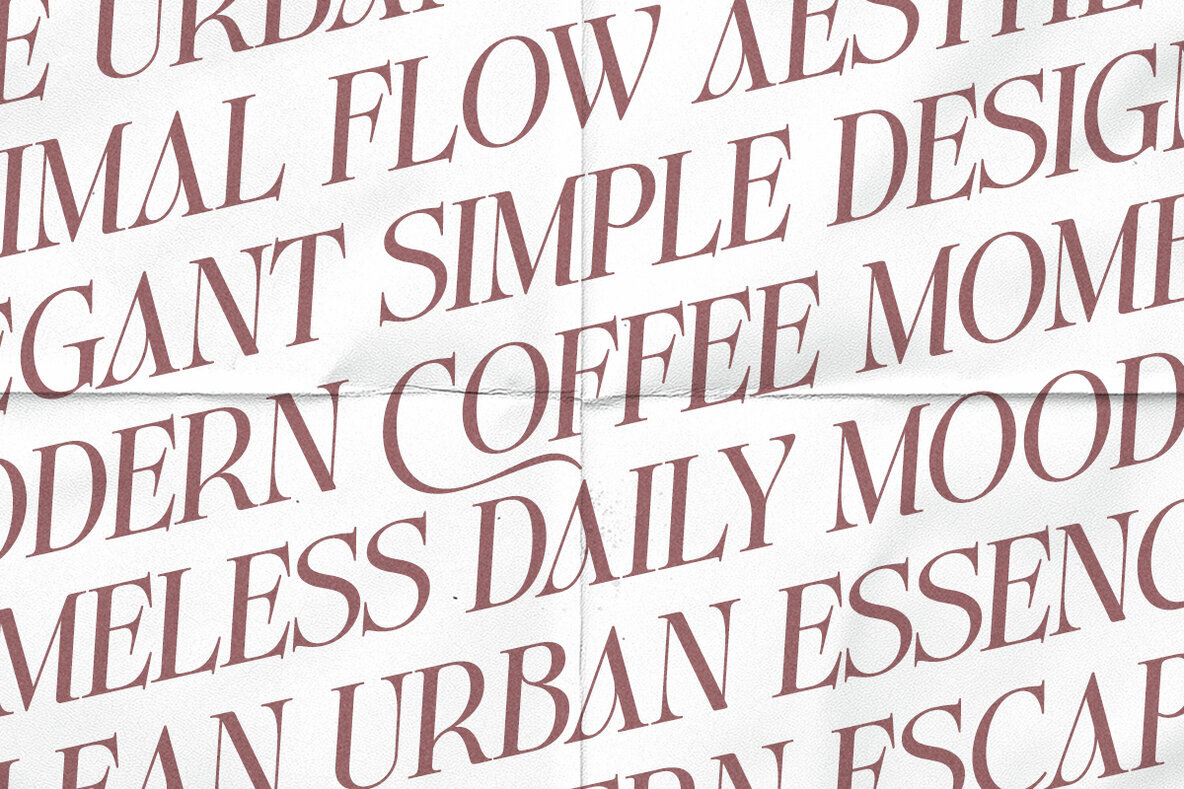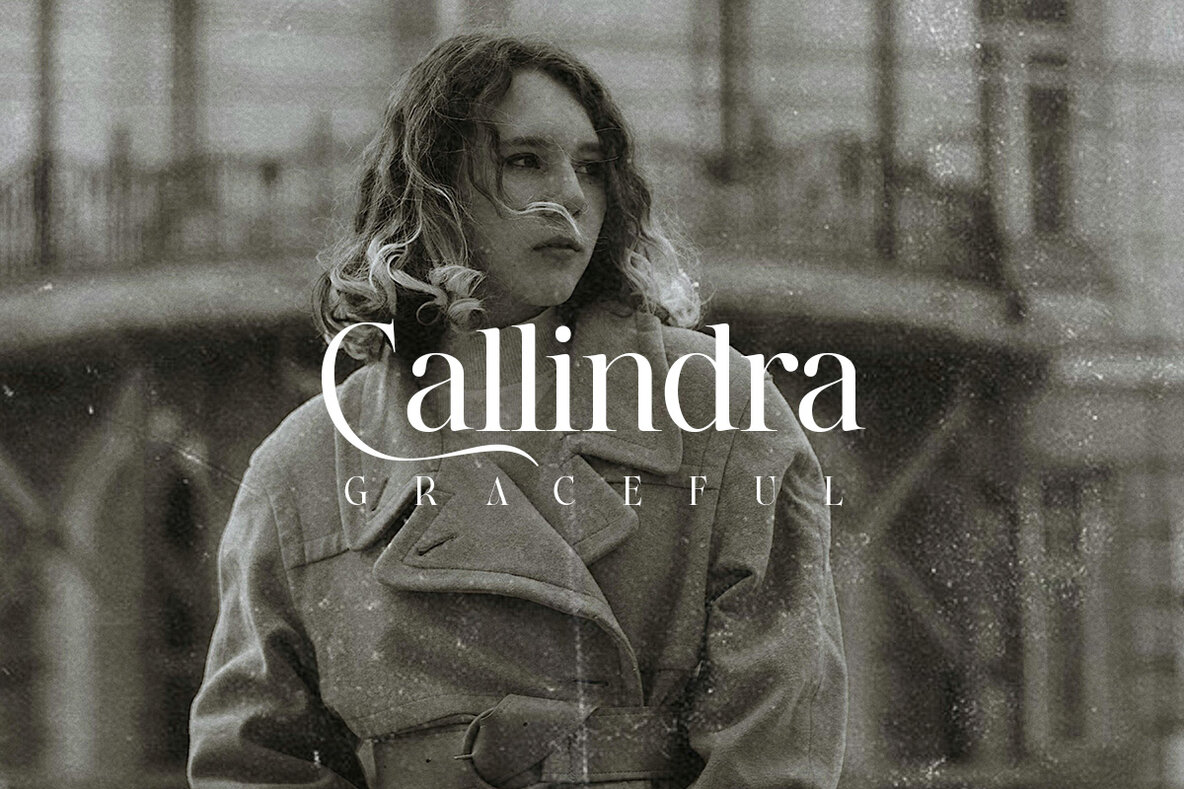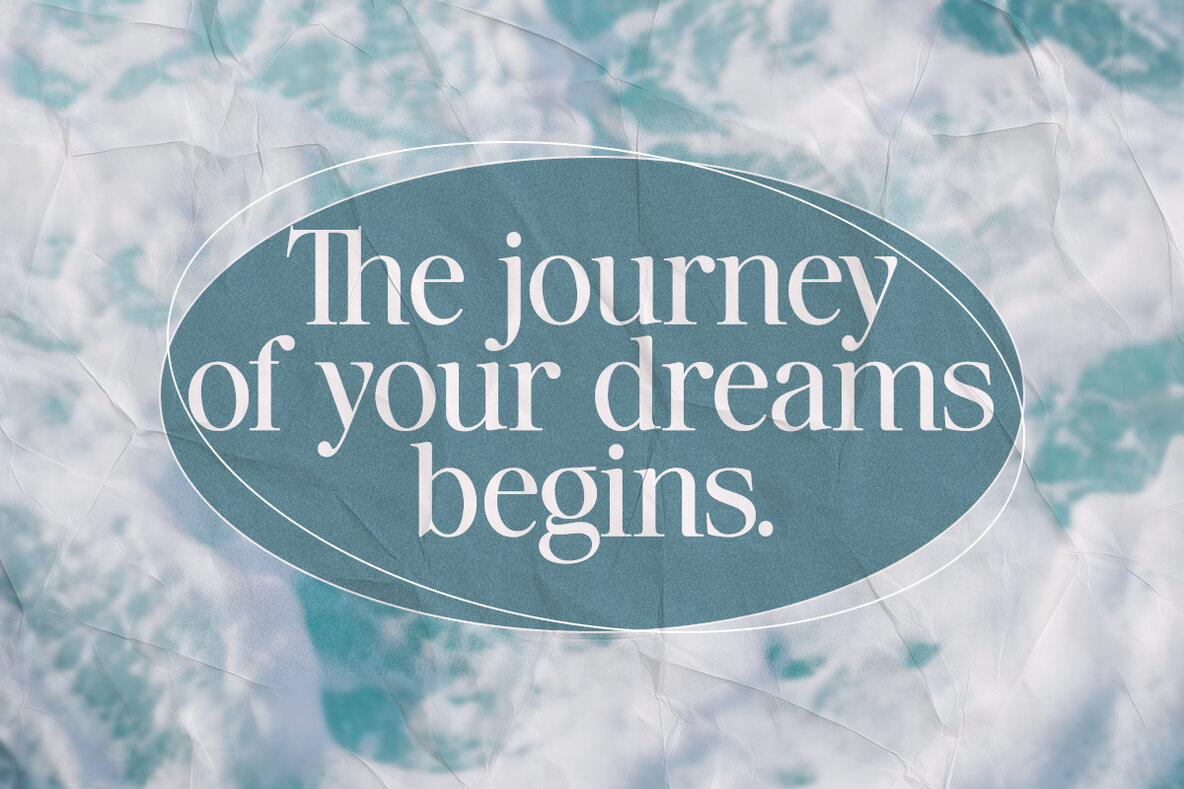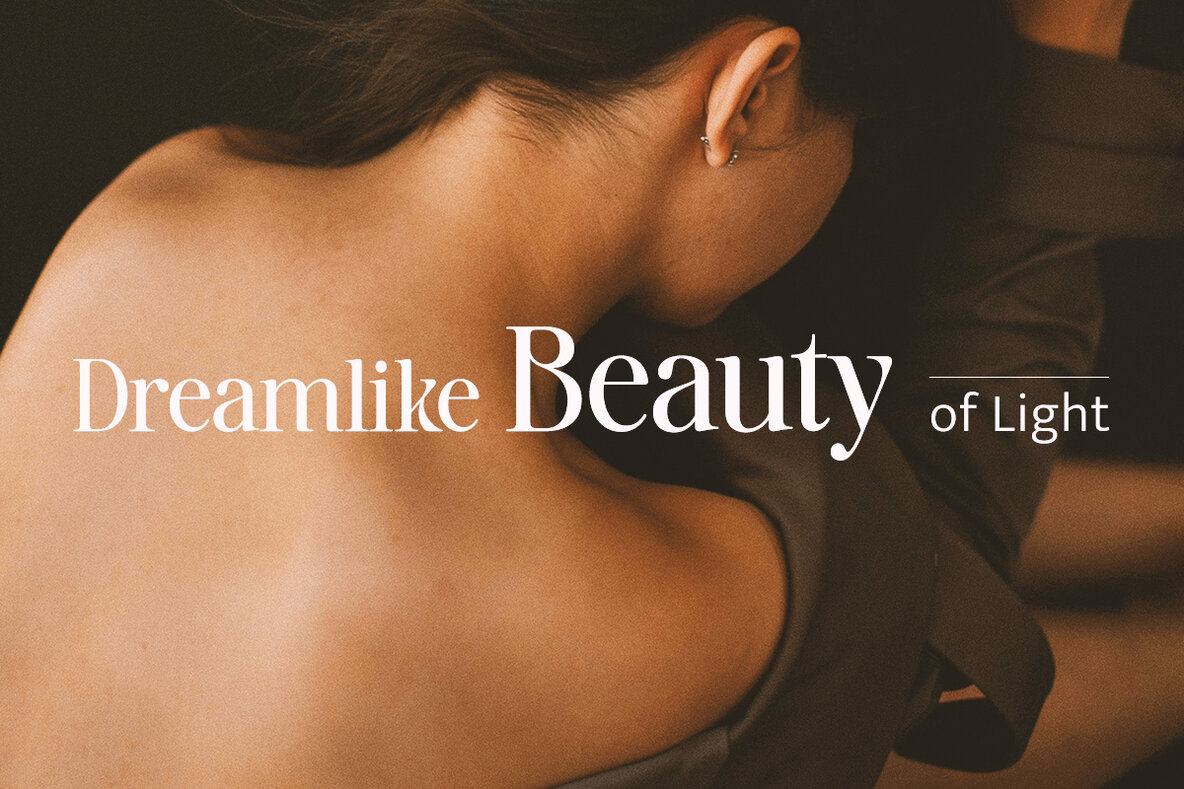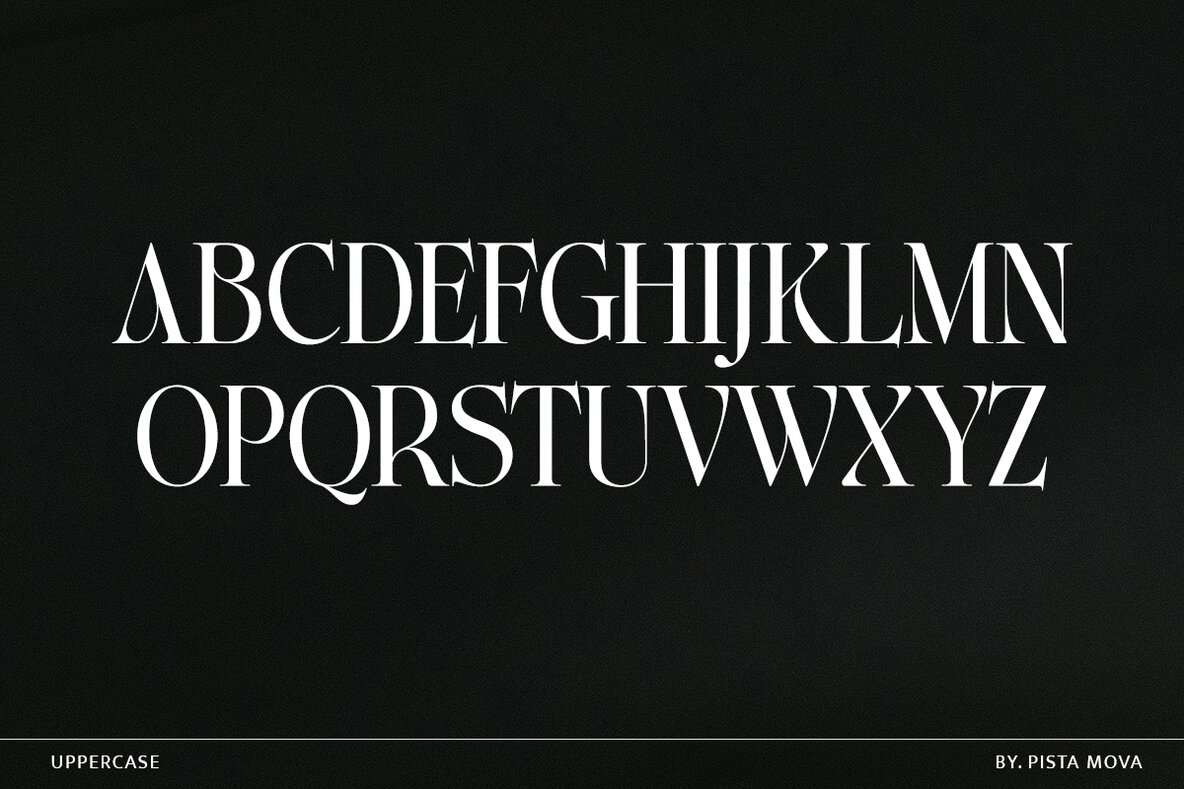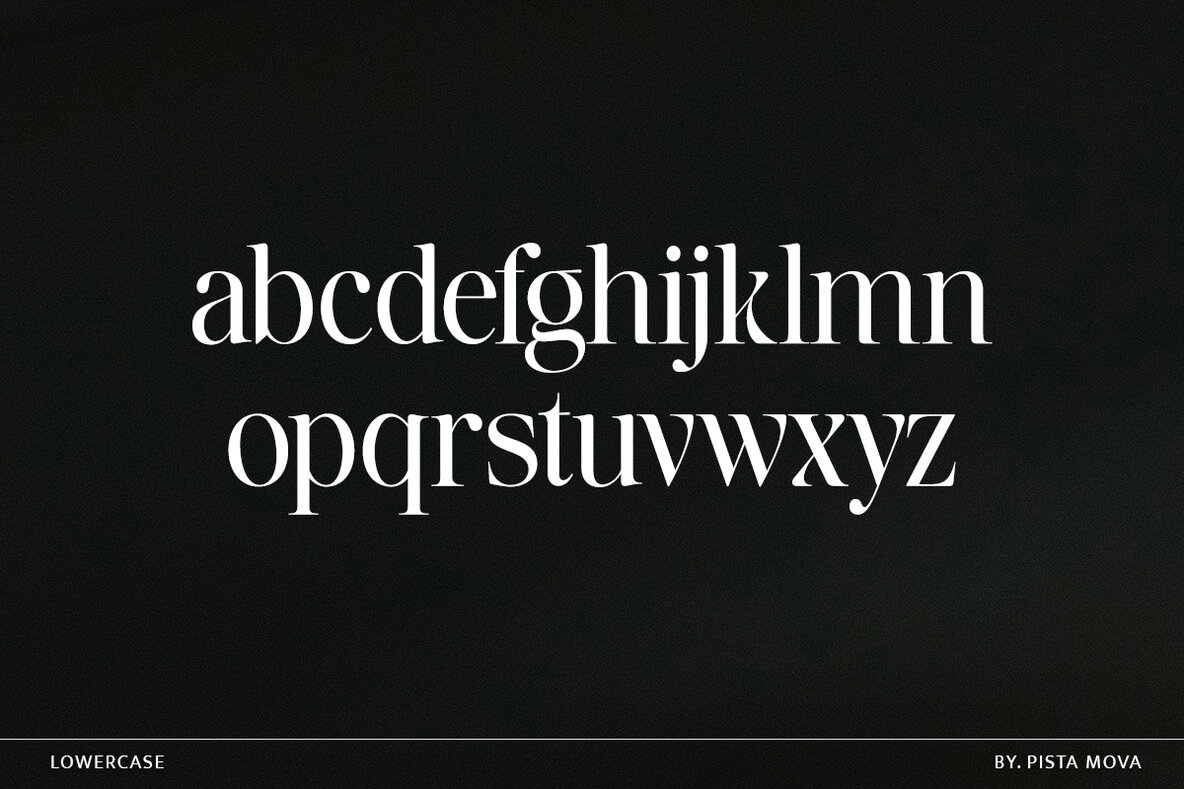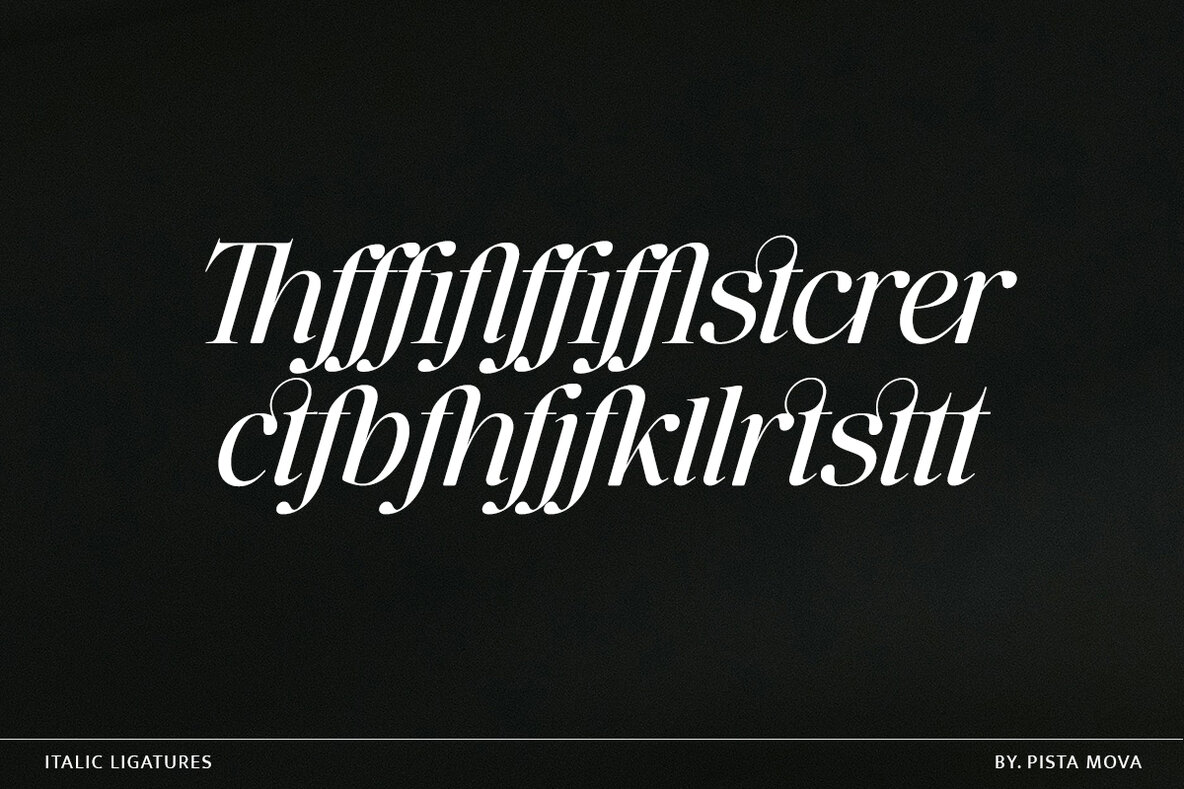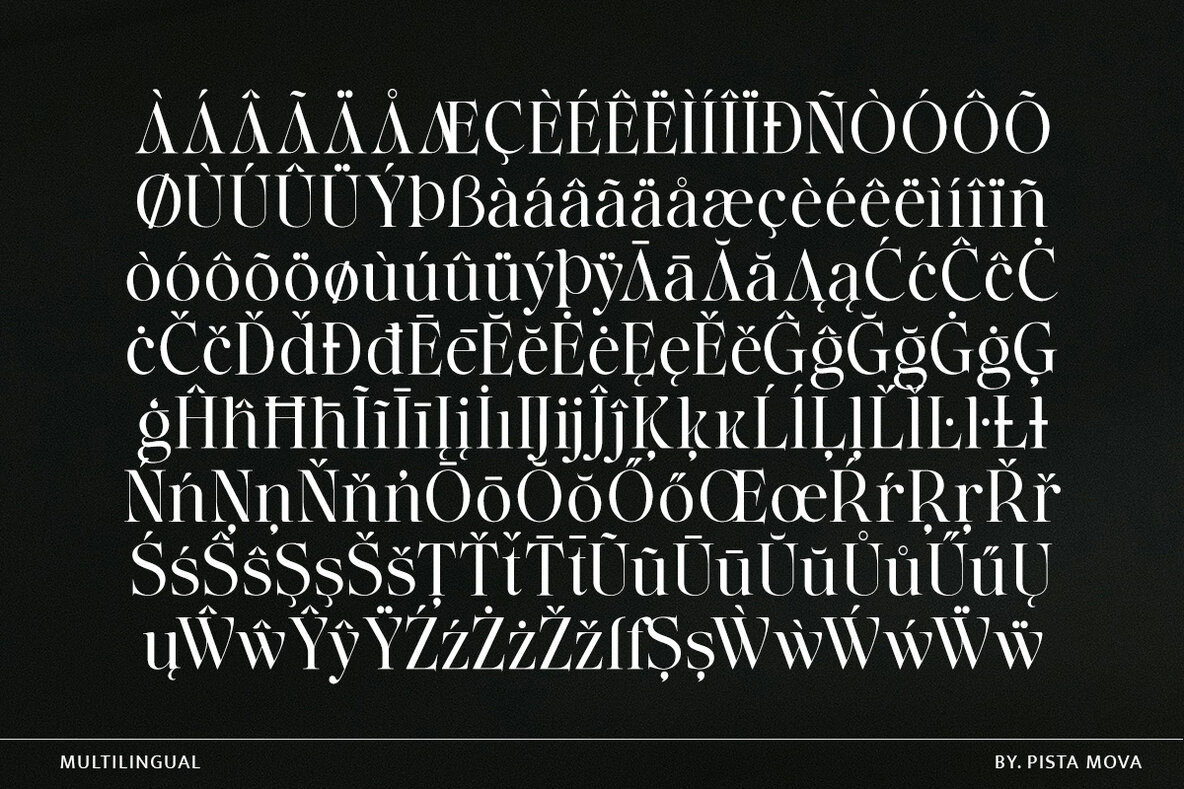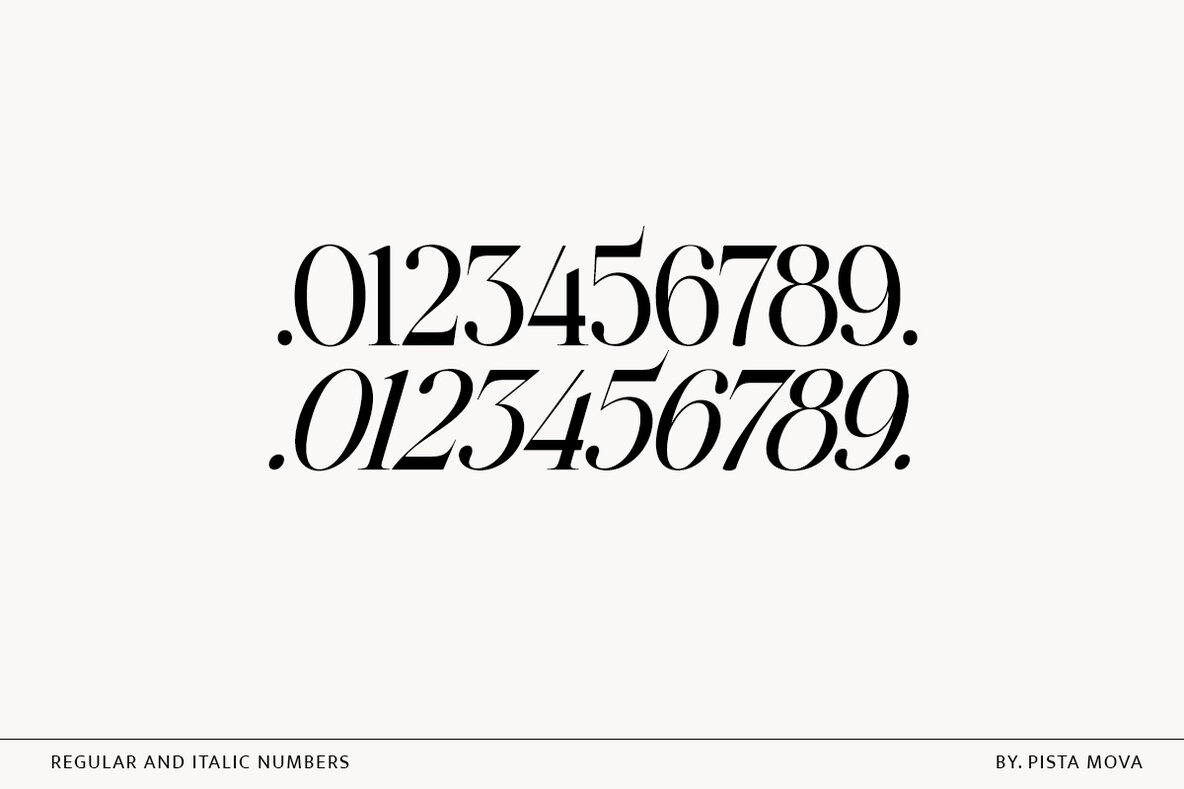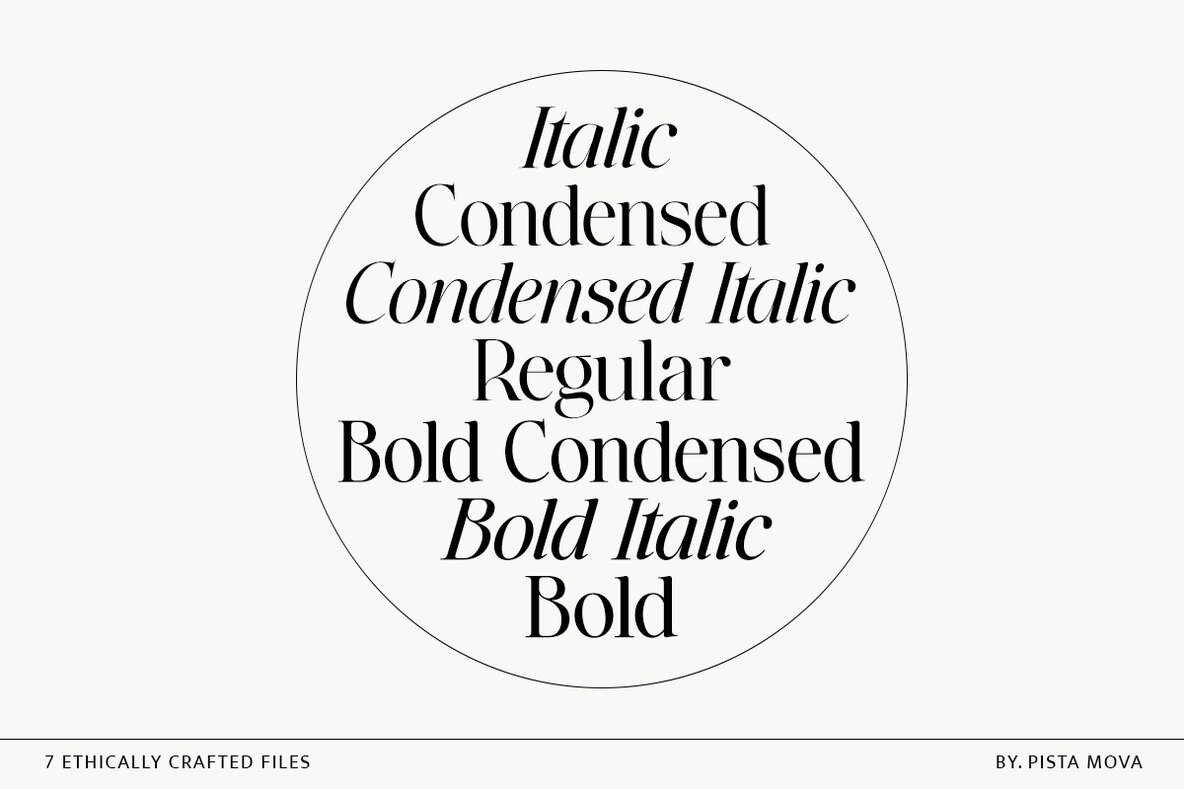
The Ethicly Font
Introducing The Ethicly: A Typeface for Timeless Elegance Create a lasting impression with The Ethicly, the perfect blend of classic sophistication and modern flexibility. Designed to captivate, The Ethicly high-contrast strokes and graceful curves bring a luxurious feel to any project. Whether you're designing a premium brand identity, an elegant editorial layout, or a compelling website, The Ethicly ensures your design stands out. Each character is carefully shaped for strength, balance, and legibility, while its true italics add fluidity and visual interest, making your text effortlessly stylish. Why Choose The Ethicly? Designed for: What You Get: - The Ethicly Regular. - The Ethicly Italic. - The Ethicly Condensed - The Ethicly Bold Italic - The Ethicly Condensed Bold - The Ethicly Condensed Italic Elevate your typography with The Ethicly and set your designs apart. Download today and bring elegance to every project!